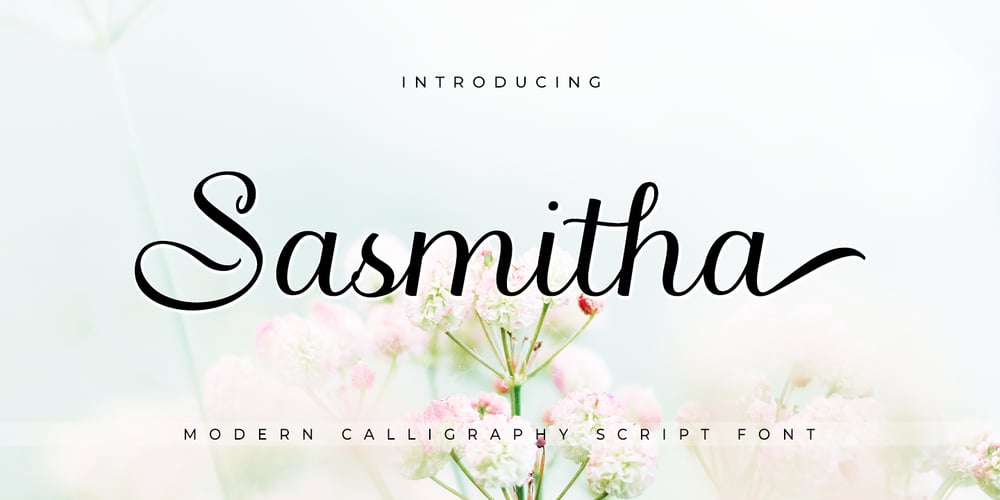
Sasmitha Script
Sasmitha Script font
Sasmitha Script Font Family was designed by Kurniadi Saputra and published by Cooldesignlab. Sasmitha Script contains 1 styles and family package options. Sasmitha is a Modern Script font that comes with a very beautiful character change, a classic copper decorative script font with a modern touch, designed with great detail to present an elegant style.Sasmitha is interesting because the typeface is pleasing to the eye, clean, feminine, sensual, glamorous, simple and very easy to read, because of the many luxurious letter connections.I also offer a number of decent stylistic alternatives for some of the letters.Thank You